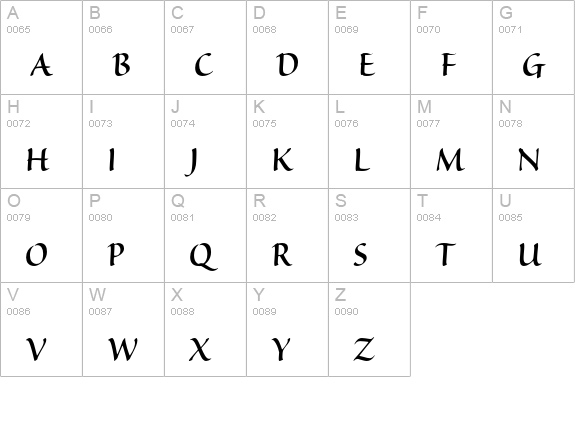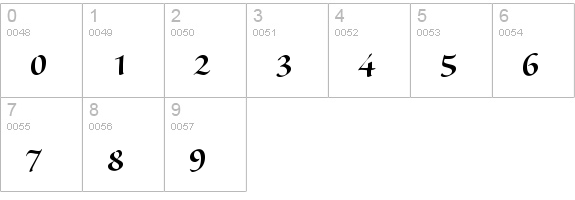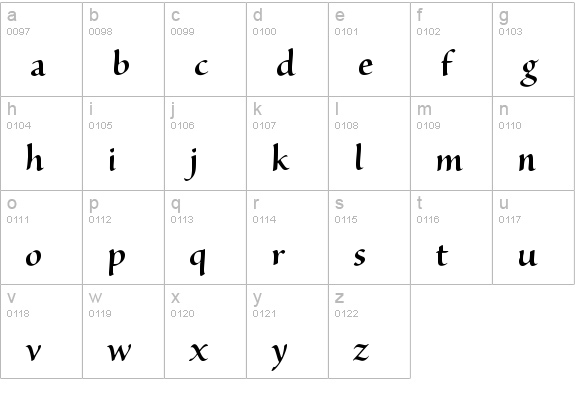
Sanvito Pro Semibold Display is a sub-bold, structured variant in the Sanvito typeface family \xE2\x80\x94 well suited to sub-headlines and emphasised passages.
Sanvito Pro Semibold Display is a visually striking font that commands attention with its bold and powerful presence. With its robust and confident letterforms, this font is perfect for headings, titles, and any design project that requires a strong and impactful typeface. The Sanvito Pro Semibold Display font exudes a sense of elegance and sophistication, making it ideal for luxury brands, fashion editorials, and high-end product packaging. Its clean and modern design ensures readability, even at smaller sizes, making it versatile for both print and digital applications. The generous spacing and well-balanced proportions of Sanvito Pro Semibold Display contribute to its legibility and readability, allowing the letters to stand out and make a lasting impression. The semi-bold weight adds to its visual impact, giving your designs a touch of boldness without overpowering the overall composition. What sets Sanvito Pro Semibold Display font apart is that it is freely available to download at FontsMarket.com. This means that you can easily access this exceptional font without any cost, making it an excellent choice for designers on a budget or anyone looking to enhance their projects with a high-quality typeface. Whether you're designing captivating headlines, eye-catching posters, or attention-grabbing advertisements, Sanvito Pro Semibold Display font will elevate your designs to new heights. Its free availability and remarkable versatility make it a must-have addition to your font library. So, why wait? Download Sanvito Pro Semibold Display font today and unleash its power in your creative endeavors.